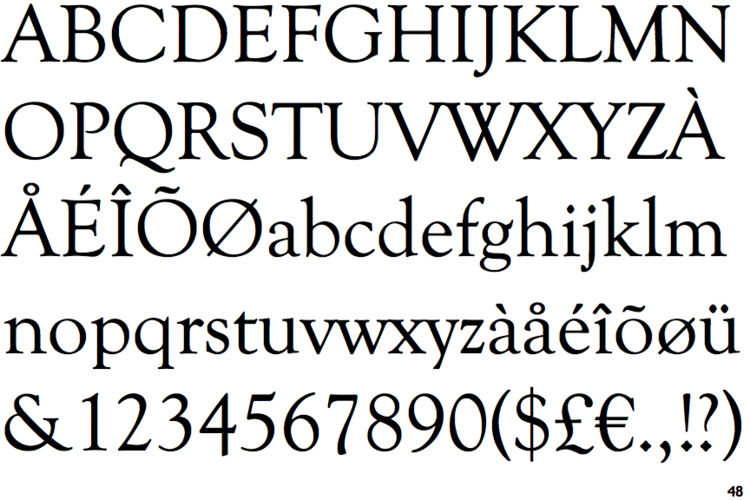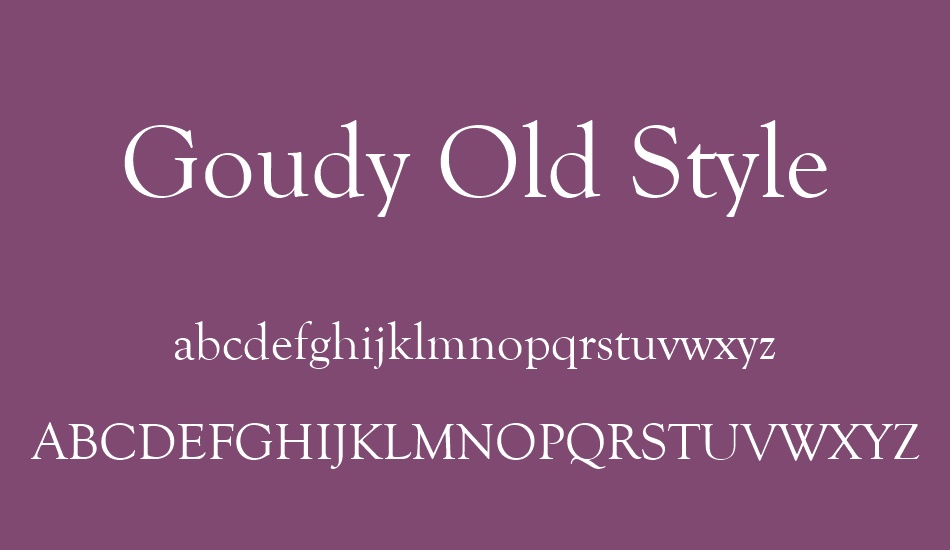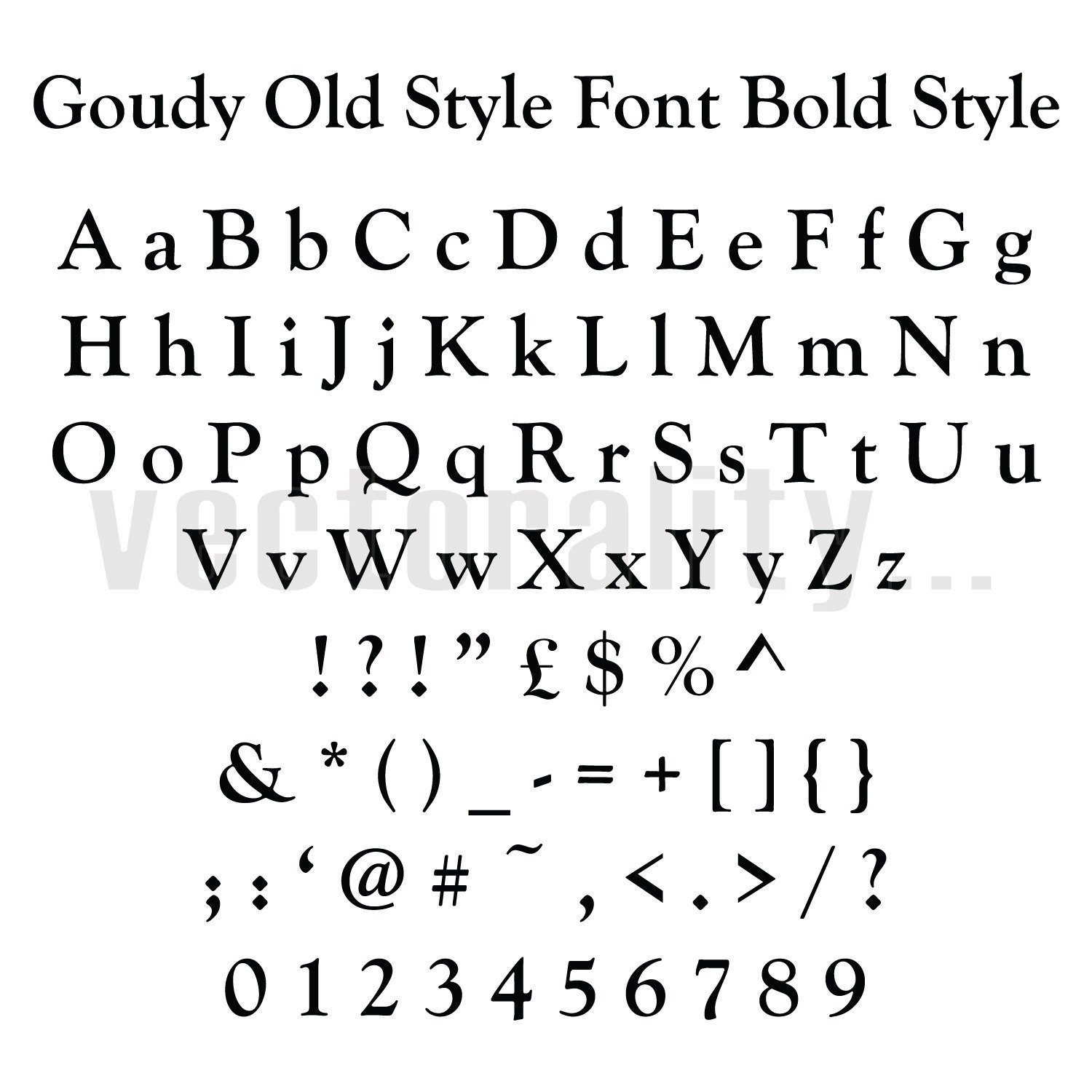
Old Goudy Font
Old Goudy Font - Ltc goudy oldstyle is a classic frederic w. This free typeface features a unique serif design that adds an air. Bring a classic, elegant look to your website with 'goudy oldstyle fonts'. A revival of frederic goudy's 'goudy oldstyle' with regular and italic styles, and extended latin character coverage. The opentype font allows for the option of long or short descenders and many other.
The opentype font allows for the option of long or short descenders and many other. A revival of frederic goudy's 'goudy oldstyle' with regular and italic styles, and extended latin character coverage. Bring a classic, elegant look to your website with 'goudy oldstyle fonts'. Ltc goudy oldstyle is a classic frederic w. This free typeface features a unique serif design that adds an air.
Bring a classic, elegant look to your website with 'goudy oldstyle fonts'. Ltc goudy oldstyle is a classic frederic w. The opentype font allows for the option of long or short descenders and many other. A revival of frederic goudy's 'goudy oldstyle' with regular and italic styles, and extended latin character coverage. This free typeface features a unique serif design that adds an air.
Bring a classic, elegant look to your website with 'goudy oldstyle fonts'. A revival of frederic goudy's 'goudy oldstyle' with regular and italic styles, and extended latin character coverage. The opentype font allows for the option of long or short descenders and many other. Ltc goudy oldstyle is a classic frederic w. This free typeface features a unique serif design.
Goudy Old Style typeface. Плакат, Шрифты
The opentype font allows for the option of long or short descenders and many other. A revival of frederic goudy's 'goudy oldstyle' with regular and italic styles, and extended latin character coverage. This free typeface features a unique serif design that adds an air. Bring a classic, elegant look to your website with 'goudy oldstyle fonts'. Ltc goudy oldstyle is.
This free typeface features a unique serif design that adds an air. Bring a classic, elegant look to your website with 'goudy oldstyle fonts'. The opentype font allows for the option of long or short descenders and many other. A revival of frederic goudy's 'goudy oldstyle' with regular and italic styles, and extended latin character coverage. Ltc goudy oldstyle is.
The opentype font allows for the option of long or short descenders and many other. Bring a classic, elegant look to your website with 'goudy oldstyle fonts'. This free typeface features a unique serif design that adds an air. A revival of frederic goudy's 'goudy oldstyle' with regular and italic styles, and extended latin character coverage. Ltc goudy oldstyle is.
Ltc goudy oldstyle is a classic frederic w. The opentype font allows for the option of long or short descenders and many other. This free typeface features a unique serif design that adds an air. A revival of frederic goudy's 'goudy oldstyle' with regular and italic styles, and extended latin character coverage. Bring a classic, elegant look to your website.
This free typeface features a unique serif design that adds an air. Ltc goudy oldstyle is a classic frederic w. A revival of frederic goudy's 'goudy oldstyle' with regular and italic styles, and extended latin character coverage. Bring a classic, elegant look to your website with 'goudy oldstyle fonts'. The opentype font allows for the option of long or short.
Goudy Old Style Alchetron, The Free Social Encyclopedia
The opentype font allows for the option of long or short descenders and many other. Ltc goudy oldstyle is a classic frederic w. This free typeface features a unique serif design that adds an air. Bring a classic, elegant look to your website with 'goudy oldstyle fonts'. A revival of frederic goudy's 'goudy oldstyle' with regular and italic styles, and.
Goudy Old Style font Font Tr
The opentype font allows for the option of long or short descenders and many other. Ltc goudy oldstyle is a classic frederic w. Bring a classic, elegant look to your website with 'goudy oldstyle fonts'. This free typeface features a unique serif design that adds an air. A revival of frederic goudy's 'goudy oldstyle' with regular and italic styles, and.
Goudy Old Style Font Bold Style Alphabet Numbers Letters Etsy
The opentype font allows for the option of long or short descenders and many other. This free typeface features a unique serif design that adds an air. Bring a classic, elegant look to your website with 'goudy oldstyle fonts'. Ltc goudy oldstyle is a classic frederic w. A revival of frederic goudy's 'goudy oldstyle' with regular and italic styles, and.
Goudy Old Style Font Download Free for Desktop & Webfont
A revival of frederic goudy's 'goudy oldstyle' with regular and italic styles, and extended latin character coverage. Bring a classic, elegant look to your website with 'goudy oldstyle fonts'. This free typeface features a unique serif design that adds an air. The opentype font allows for the option of long or short descenders and many other. Ltc goudy oldstyle is.
The Opentype Font Allows For The Option Of Long Or Short Descenders And Many Other.
This free typeface features a unique serif design that adds an air. Bring a classic, elegant look to your website with 'goudy oldstyle fonts'. Ltc goudy oldstyle is a classic frederic w. A revival of frederic goudy's 'goudy oldstyle' with regular and italic styles, and extended latin character coverage.